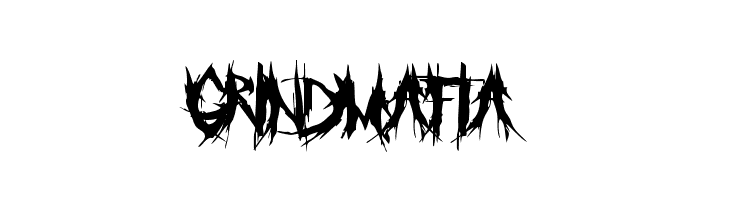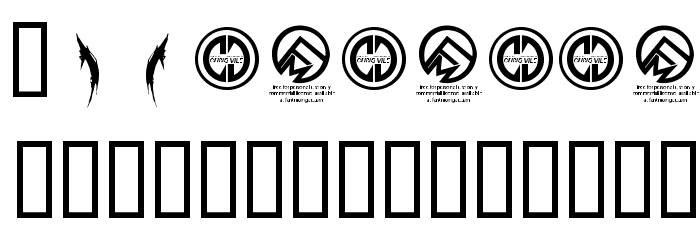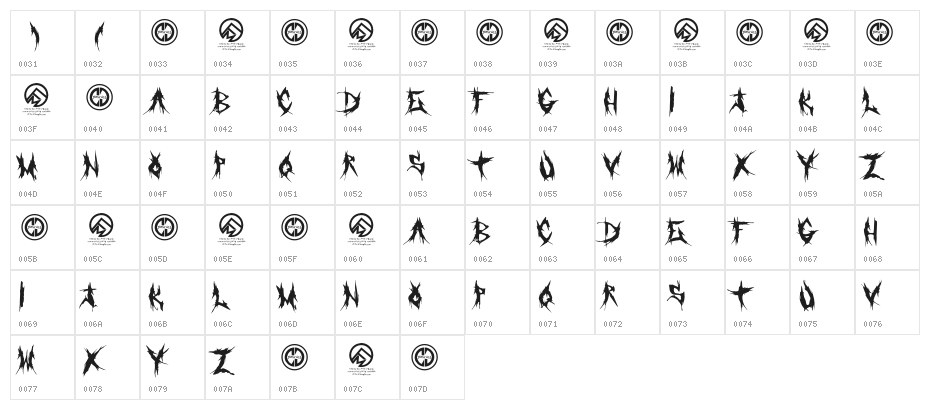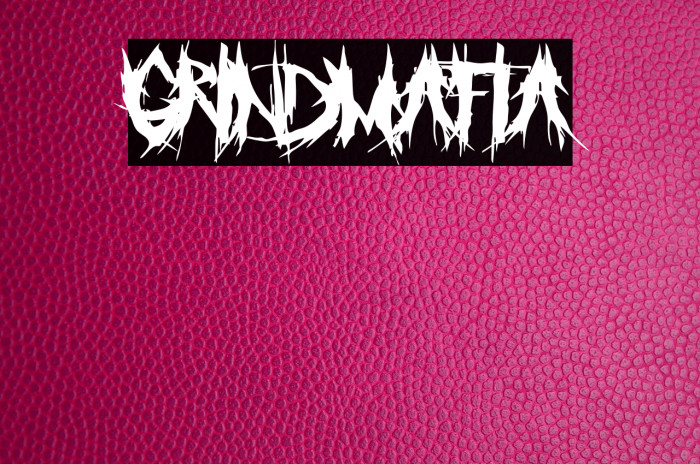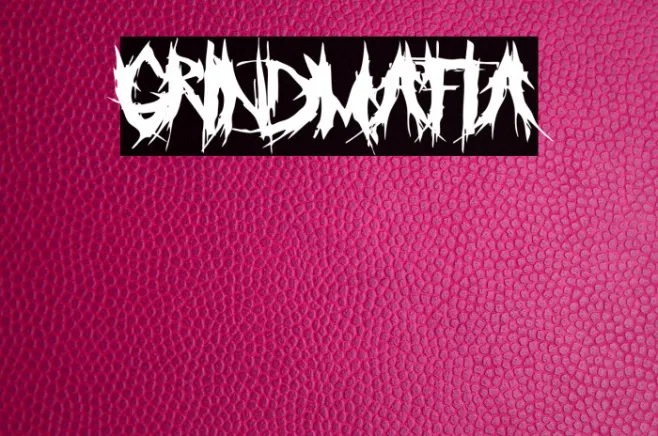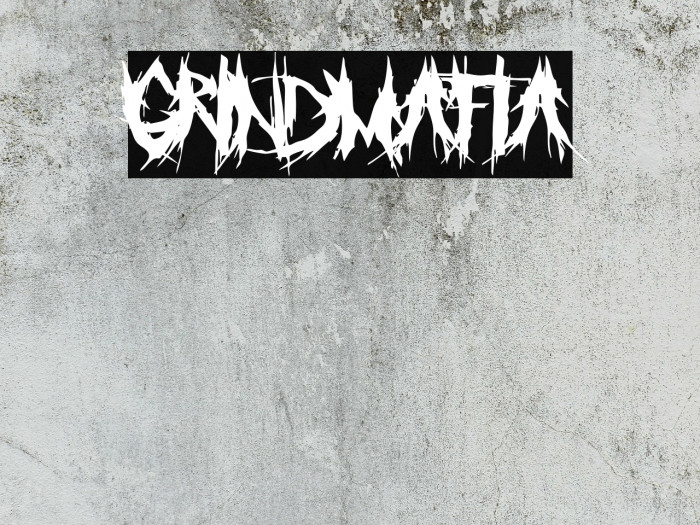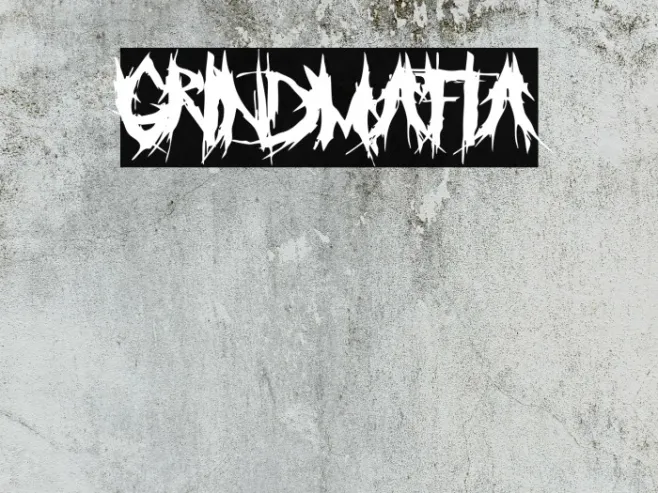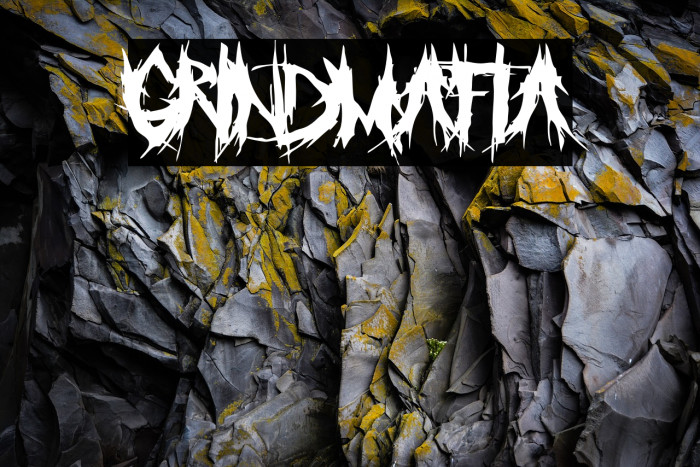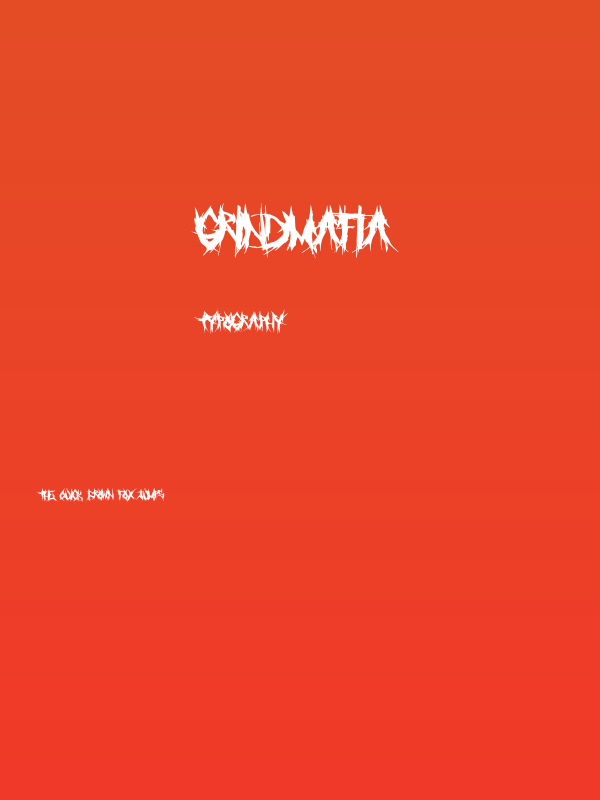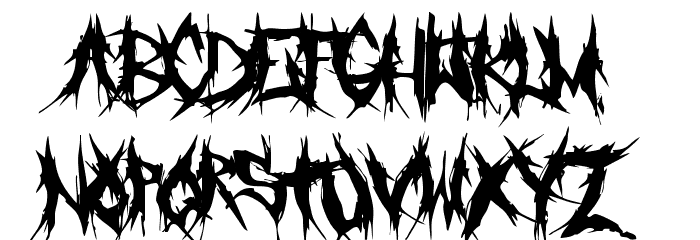
GrindMafia Font
GrindMafia Description
This font features an aggressive and jagged design, reminiscent of sharp thorns or spikes. The letters are highly stylized with an edgy, chaotic appearance, making it ideal for projects that require a bold and rebellious aesthetic. The uppercase letters are particularly striking, with each character having unique and intricate details that contribute to the overall intense look. The font's design is consistent across all characters, maintaining a cohesive yet dynamic style. Its distinctive appearance makes it stand out, perfect for creating eye-catching titles or logos.
| Overall Style | Modern, Edgy |
| Use Case | Logos, Headlines |
| Proposed Projects | Ideal for music album covers, extreme sports branding, or edgy fashion labels. |